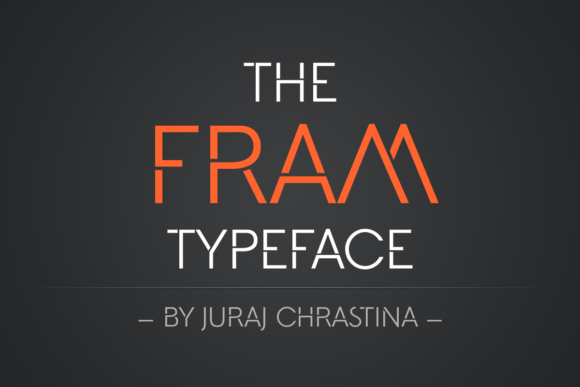
Introducing Fram Font, the ultimate tool for creating stunning vinyl stencils that will leave a lasting impression. Unleash your creativity and transform your ideas into tangible works of art with this exceptional font family.
Embrace the limitless possibilities of Fram Font and elevate your vinyl cutting projects to new heights. Its crisp, clean lines and bold, stencil-inspired characters make it a standout choice for a wide range of applications. Whether you're designing custom signage, eye-catching wall art, or intricate home décor, Fram Font has got you covered.
Step into a world of bold expression and captivating designs with Fram Font. Its carefully crafted letterforms ensure effortless readability and visual impact, even from a distance. Showcase your messages with confidence, knowing that your words will resonate with your audience.
Immerse yourself in the world of vinyl stenciling with Fram Font as your trusted companion. Its versatility knows no bounds, allowing you to explore a spectrum of creative possibilities. From bold street art that commands attention to delicate home accessories that add a touch of whimsy, Fram Font adapts seamlessly to your unique style.
Join the ranks of creative visionaries who have embraced Fram Font's magic. Discover the joy of turning your digital designs into tangible masterpieces. With Fram Font, the possibilities are infinite, and your imagination is the only limit.